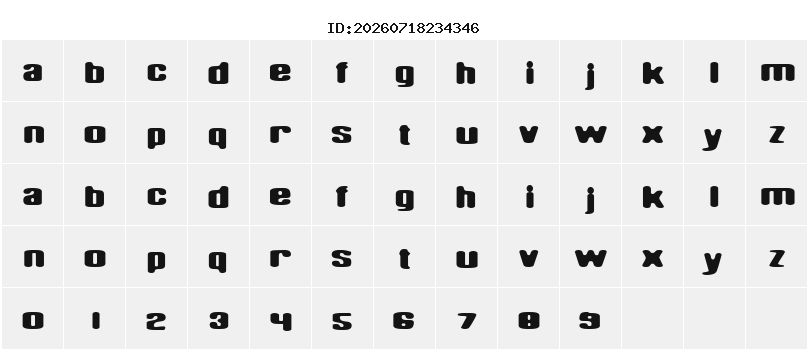
CoralSea Preview
• Font Name: CoralSea
• Font ID: Macromedia Fontographer 4.1.4 CoralSea
• Full Font Name: CoralSea
• Version: Macromedia Fontographer 4.1.4 11/2/04
• PostScript Name: CoralSea
About CoralSea.ttf
CoralSea.ttf is a modern, elegant sans-serif font designed for ultimate readability and visual harmony. Perfect for branding, headlines, web design, and print materials.